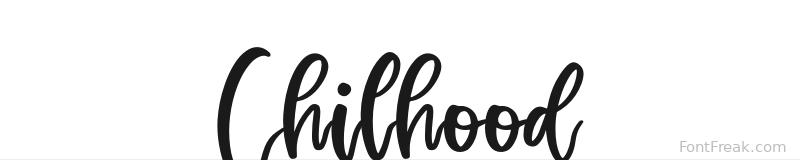
Chilhood Italic
Chilhood
Chilhood Italic, created by Perspectype Studio in 2021, is a captivating handwritten font that effortlessly combines elegance and playfulness. This italic style showcases a unique blend of flowing curves and dynamic strokes, giving it an organic feel that is both inviting and personal. The font features a moderate stroke weight with subtle contrasts, enhancing its legibility while maintaining a whimsical aesthetic. The generous spacing between letters ensures clarity, making it suitable for various applications, from digital to print.
This font is perfect for a range of creative projects. Its charming characteristics make it an excellent choice for wedding invitations, where a touch of romance is desired. Additionally, Chilhood Italic shines in children's book covers, capturing the essence of youthful imagination. Restaurant menus can benefit from its friendly tone, drawing in customers with an appealing design. Moreover, it is ideal for crafting promotional materials for small businesses that aim to convey a warm and approachable brand image. Content creators will also find Chilhood Italic invaluable for social media graphics, where it adds a personal touch to any message.
The target audience for Chilhood Italic includes graphic designers, small business owners, and content creators who seek to elevate their projects with a distinctive typeface. This font is not only versatile but also accessible, as it is available for free download. What truly sets Chilhood Italic apart is its ability to evoke emotion through its design. It captures the essence of childhood nostalgia while remaining modern and versatile, making it a standout choice for anyone looking to infuse their work with personality and charm. Embrace the creativity and warmth of the Chilhood Italic font free download for your next project.